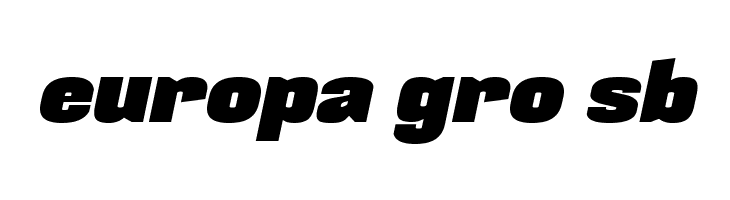
A bold, italic font with strong strokes and a dynamic slant, perfect for impactful designs.
A bold, impactful font with strong, thick strokes for high visibility.
A bold, geometric font ideal for impactful headlines and logos.
A bold, italic font with a dynamic and modern style.